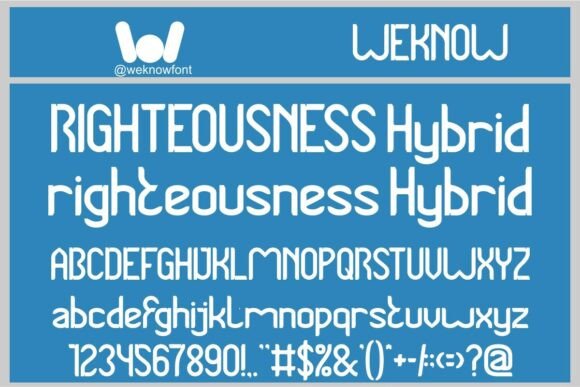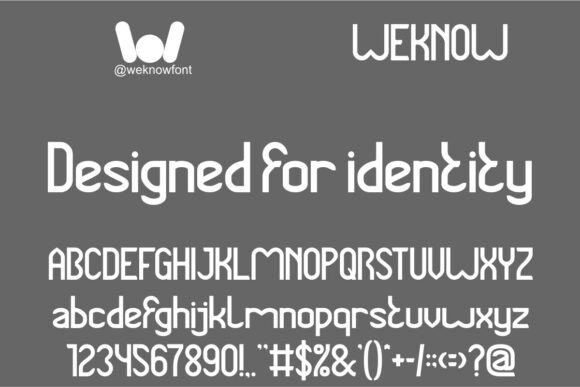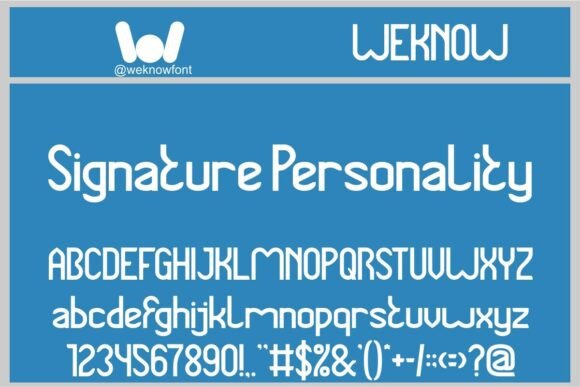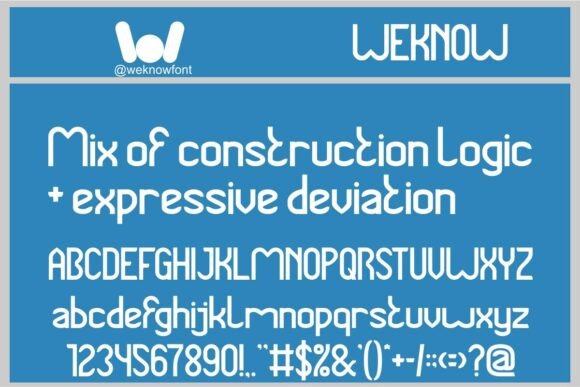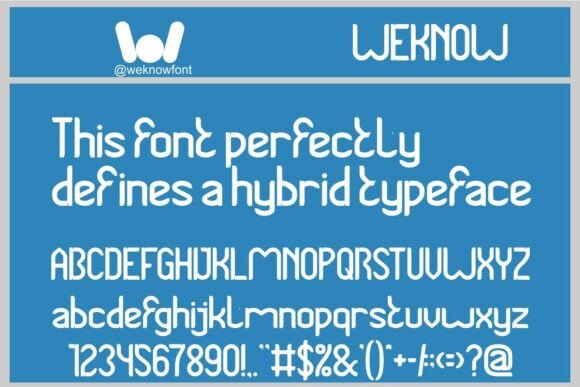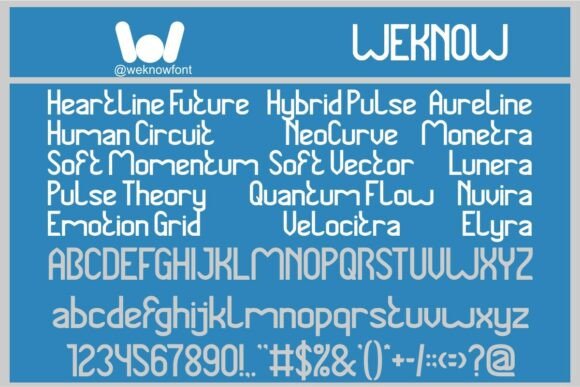
Introduction to Righteousness Font
Have you ever stared at a blank canvas, waiting for inspiration to strike, only to have it come to life with a single, perfectly chosen font? That’s what happened to me when I first laid eyes on the Righteousness Font. Its futuristic and stylised humanist elements seemed to transport me to a world of endless possibilities, and I knew I had to share it with fellow designers.
The Righteousness Font is more than just a design resource – it’s a game-changer. Its perfect balance of simplicity and artistic flair makes it an ideal choice for logo designs, captivating headlines, and defining corporate and brand identities. And with its seamless integration into various design sectors, from apparel to entertainment, it’s no wonder designers are falling in love with this high-quality font.
Key Features of Righteousness Font
- Unique Typography: The Righteousness Font offers a distinctive, high-quality typography that is perfect for creative projects.
- Transparent Background: This font features a transparent background, allowing you to easily combine it with other design elements.
- High-Quality Design: The font is designed with high-quality graphics, ensuring that it looks great on a variety of devices and resolutions.
- Resolution-Independent: This font is designed to be resolution-independent, ensuring that it looks great at any resolution or size.
- Perfect for Creative Projects: The Righteousness Font is ideal for use in creative projects, such as graphic design, web design, and digital art.
Honest Review: Righteousness Font
As a designer, I’m always on the lookout for high-quality design resources to elevate my creative projects. Recently, I stumbled upon the Righteousness Font, and I must say, it’s been a game-changer for me. ✨
One of the standout features of this font is its versatility. It’s perfect for both digital and print designs, making it a great addition to any design resource library. The font’s modern and elegant design makes it ideal for creating a professional and sophisticated look in any creative project.
- High-quality design that’s perfect for both digital and print designs
- Transparent background, making it easy to customize and integrate into any design
While the Righteousness Font is an excellent choice for most designers, there are a few limitations to consider. ⚠️ For instance, the font may not be suitable for extremely small text sizes, and it may not be as effective for creating bold, attention-grabbing headlines.
Tips for Getting the Most Out of Righteousness Font
To maximize the potential of the Righteousness Font, experiment with different font sizes, colors, and combinations. This will help you achieve a unique look for your creative project.
The Righteousness Font is suitable for various design projects, including:
- Posters
Yes, the Righteousness Font supports transparent backgrounds, allowing for seamless integration with various design elements and backgrounds. This feature makes it an ideal choice for creative projects that require a high level of design flexibility.
Q: Is the Righteousness Font suitable for use in digital and print media?
Yes, the Righteousness Font is designed to be highly legible and versatile, making it suitable for use in both digital and print media. Its high quality and crisp typography ensure that it will display well on various devices and in different resolutions.